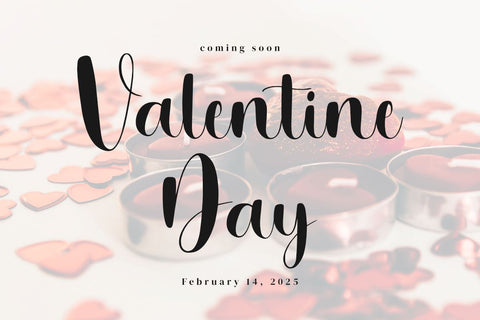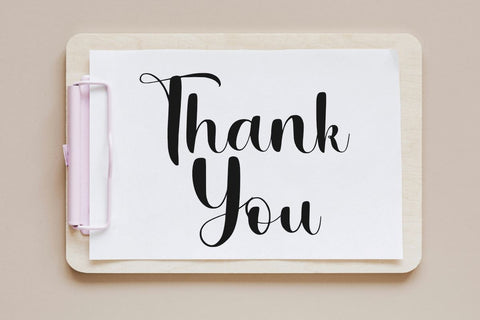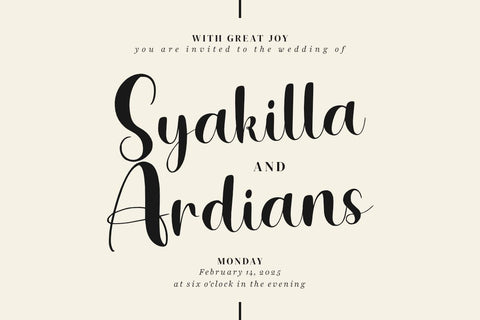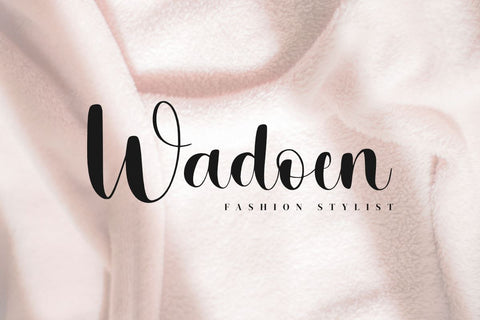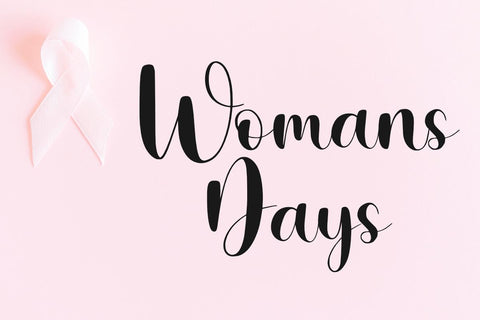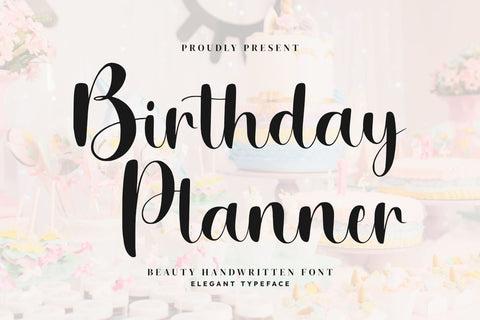
Birthday Planner - Wedding Handwritten Font
Birthday Planner is a sweet and cursive handwritten font. This gentle font will look gorgeous on a variety of design ideas. It will add a joyful and romantic touch to each of your projects! Perfectly fit for branding, logo, wedding things, greeting cards, fashion, lookbook, marketing promotion, and any time you want your design to look fancy and elegant but still casual.